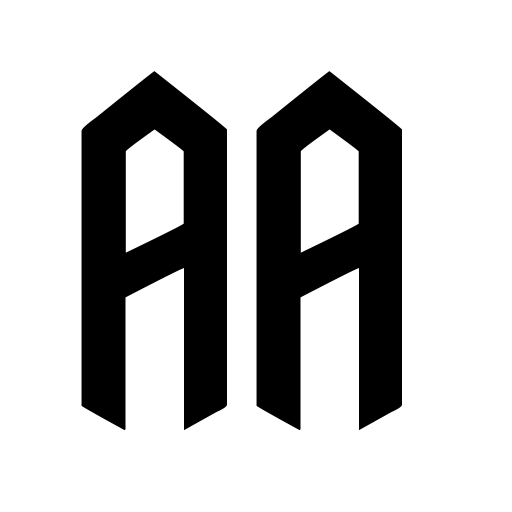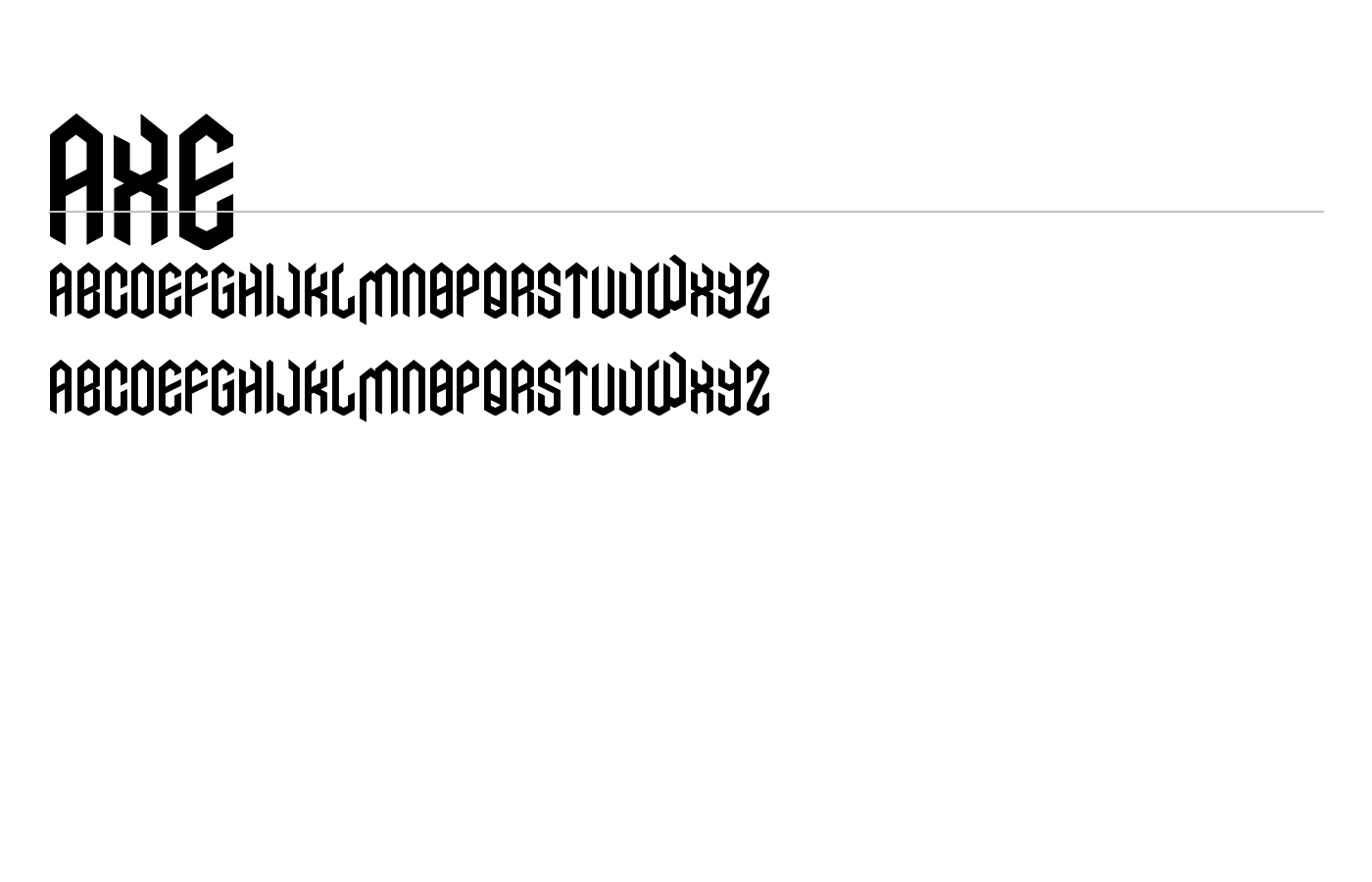
AXE Font is a bold, condensed display typeface with a striking Gothic-inspired design and sharp, angular strokes that give it a strong, edgy personality. Its uniform weight and tall x-height make it highly impactful for headlines and logos, especially where a dramatic, modern, or industrial vibe is desired. This font works well for branding and posters that need to convey strength and uniqueness with a stylish, contemporary twist.
AXE Font